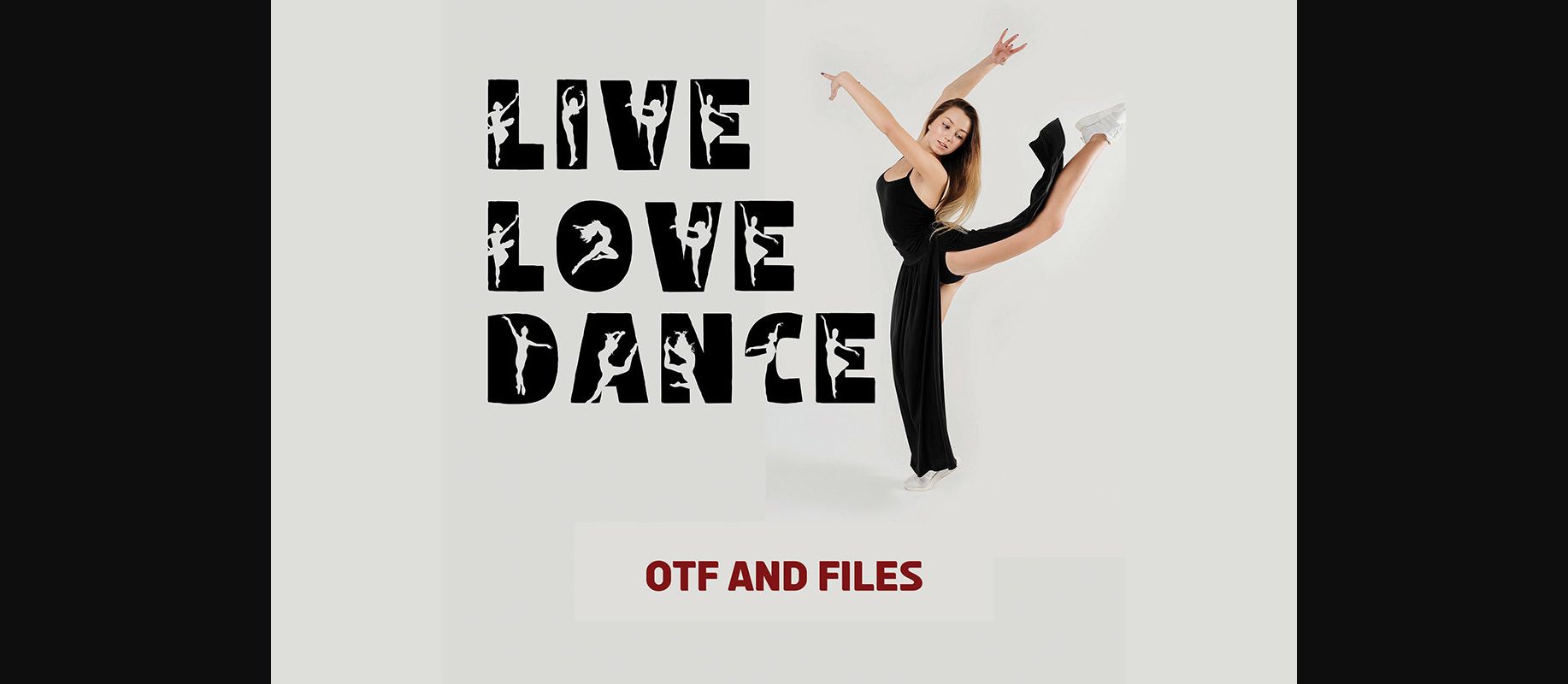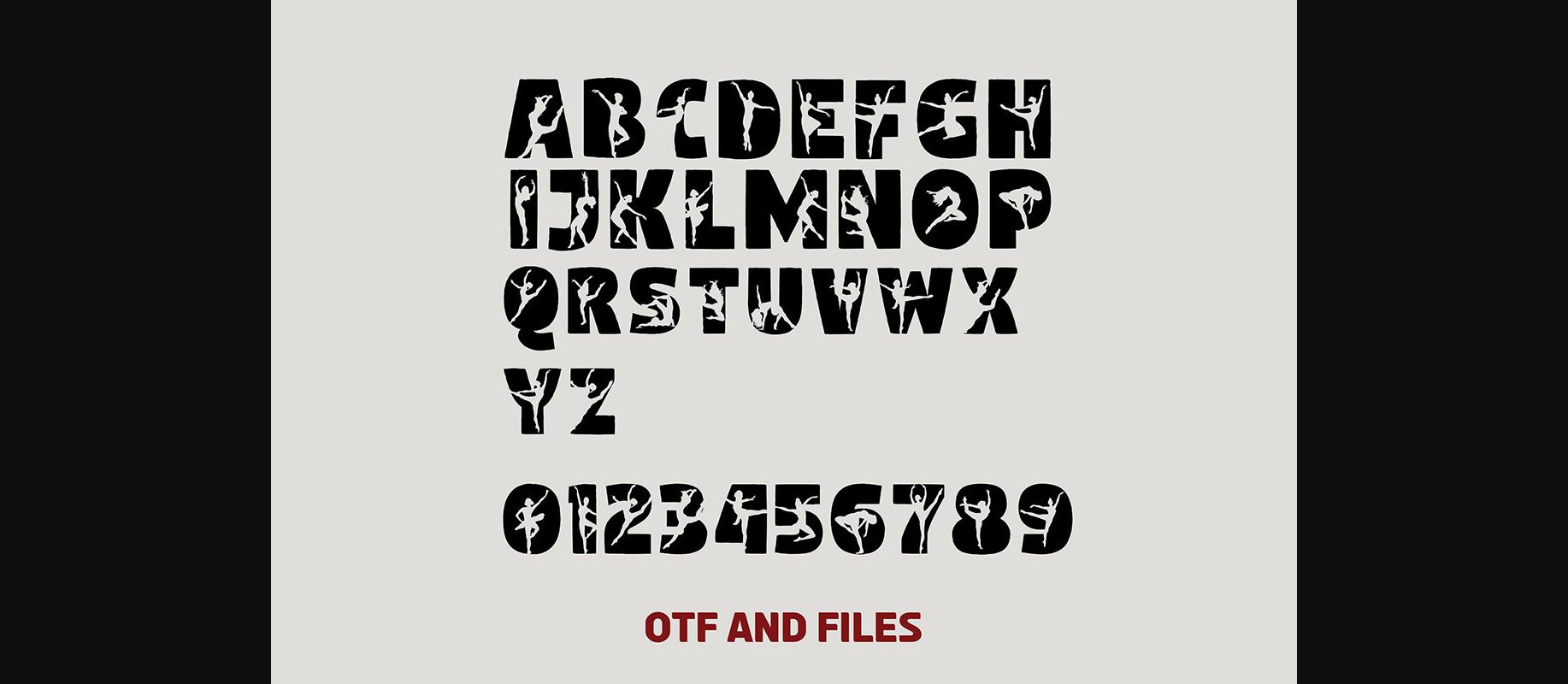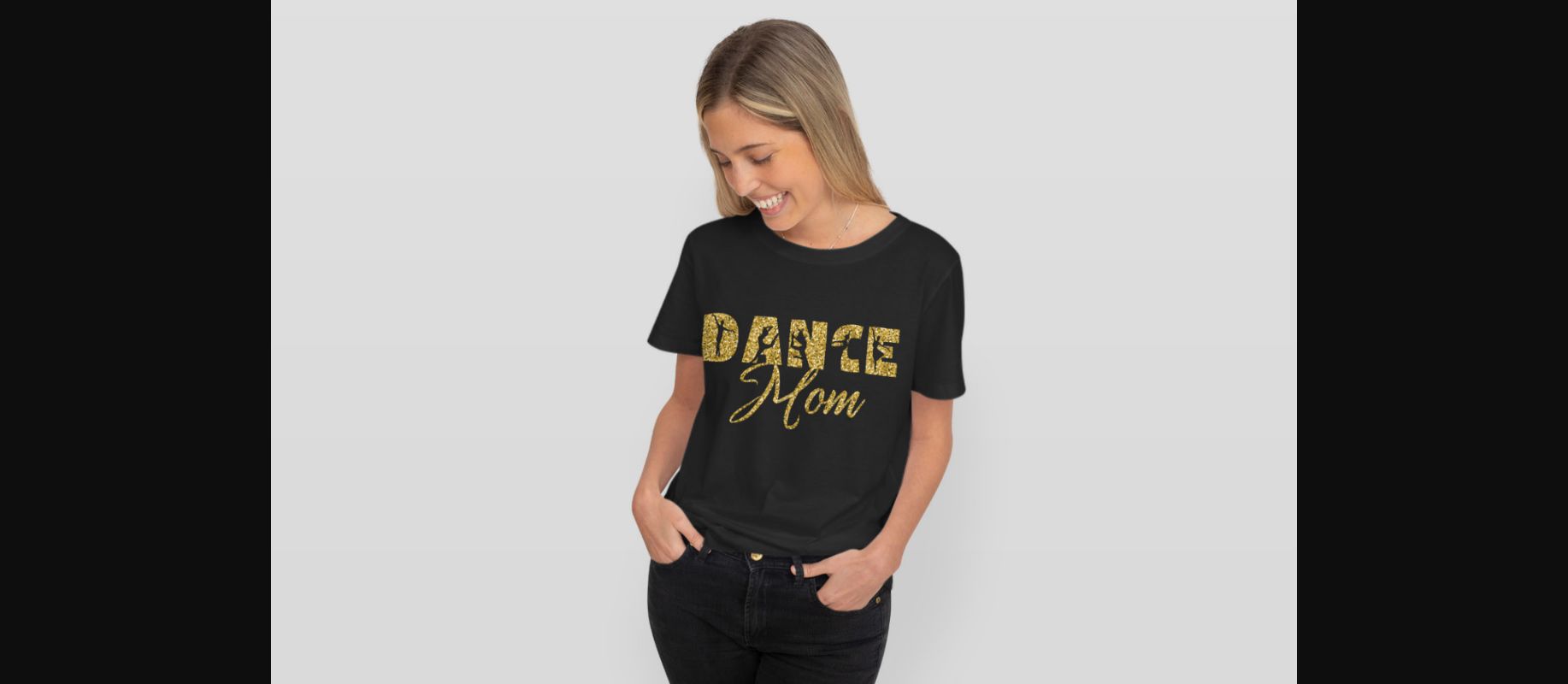
About Live Love Dance Font
Live Love Dance is a delightful and enchanting alphabet font designed exclusively for dancing divas! This playful and vibrant font is perfect for all your dance-related projects, from dance studio logos to party invitations, dancewear branding, and more. This font will add a touch of elegance and movement to your designs, capturing the grace and energy of every dancing girl.